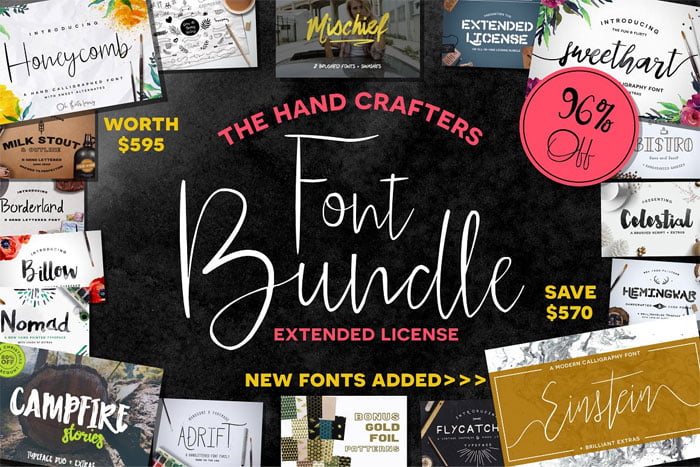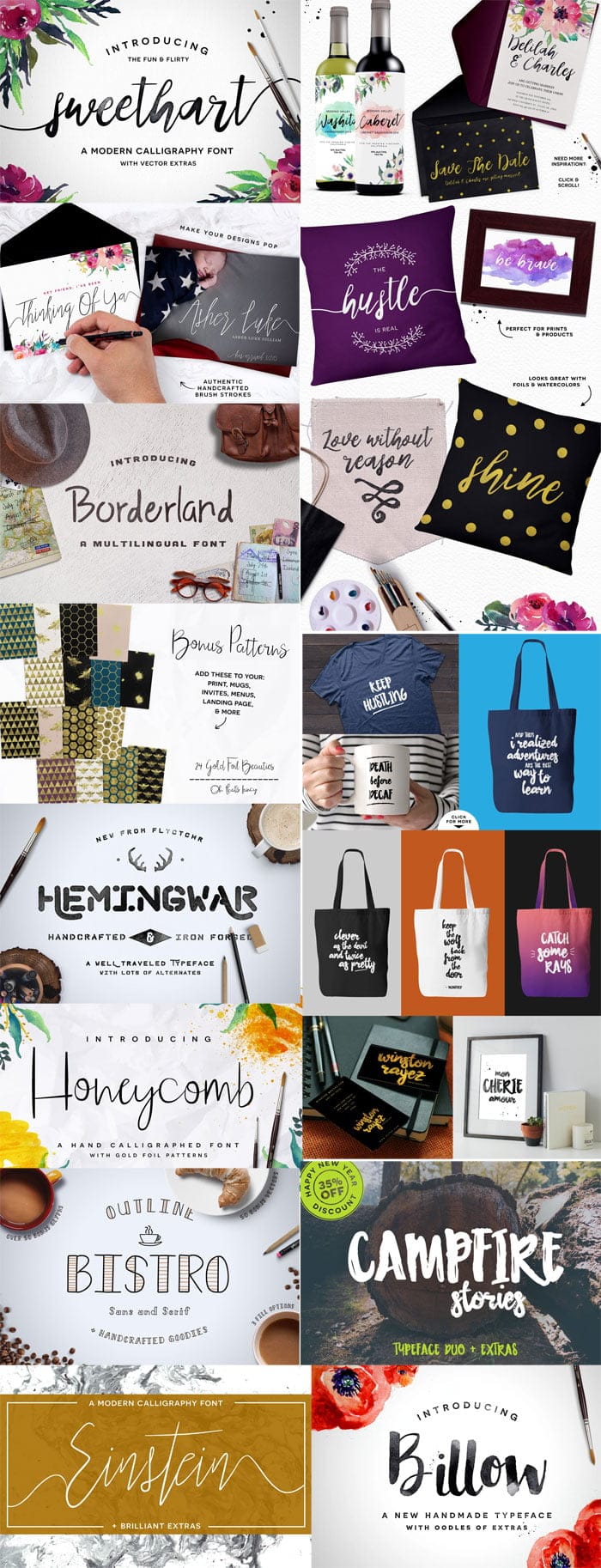
Hand Crafters Font Bundle
This pack includes 14 Premium Font Families with over 35 individual fonts. It’s also loaded with extra goodies including over 100 hand drawn vectors, hundreds of bonus glyphs including language support across the board, custom brushes, swashes, ink splatters, end ornaments and ligatures, watercolor and gold foil patterns all rolled into one must have font bundle.
WHAT’S INCLUDED:
• Einstein
• Sweethart
• Honeycomb
• Campfire Stories
• Celestial
• Mischief
• Billow
• Flycatcher
• Bistro
• Adrift
• Nomad
• Milk Stout
• Hemingwar
• Borderland